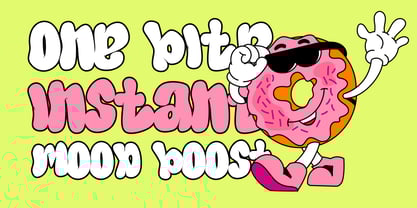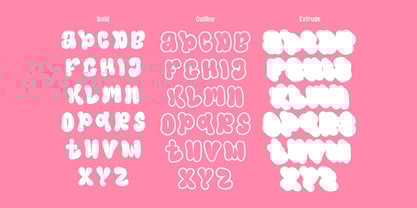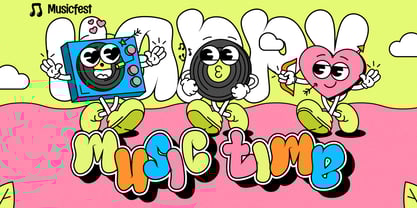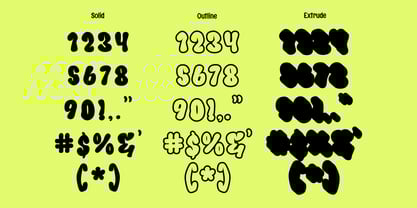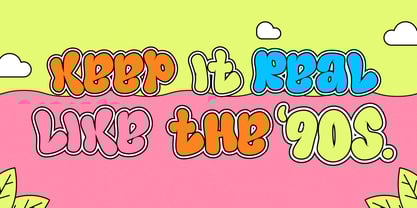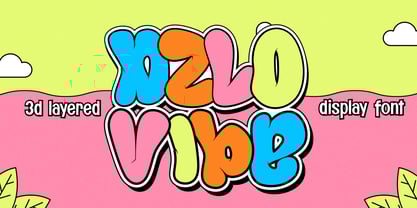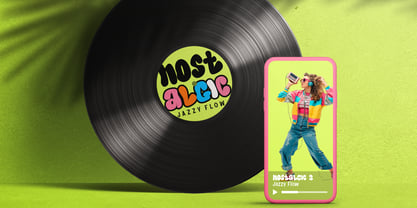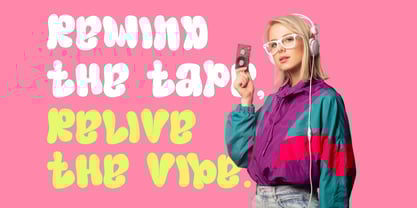
Dzlo Vibe Extrude
by Sipanji21
The Dzlo Vibe Extrude Font Family was designed by Sipanji and published by Sipanji21. Dzlo Vibe Extrude contains 3 styles and family package options. More about this family
Dzlo Vibe is a playful and chubby 3D layered display font with rounded character shapes that bring a fun, cheerful vibe to your designs. Its multi-layered style adds depth and a dynamic touch, making it perfect for kids' projects, product packaging, playful branding, social media posts, and any design that needs a dose of cuteness with bold personality.
Designers: Sipanji
Foundry: Sipanji21